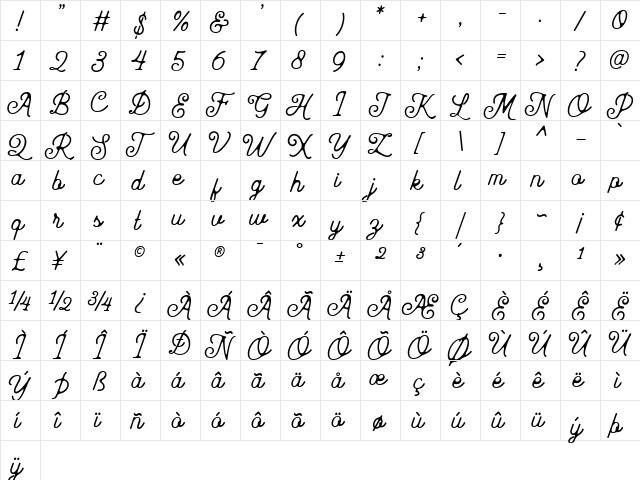
Mayhena Inky
| Foundry | Arterfak Project |
| Designer | Ahmad Ramzi Fahruddin |
Design Context for Mayhena Typeface
Mayhena offers clean, dependable letterforms without strong stylistic allegiance, making it a practical choice for designers who need flexibility.
Pro Tip: Use Mayhena in both headline and body roles to test its range before committing to a single application.